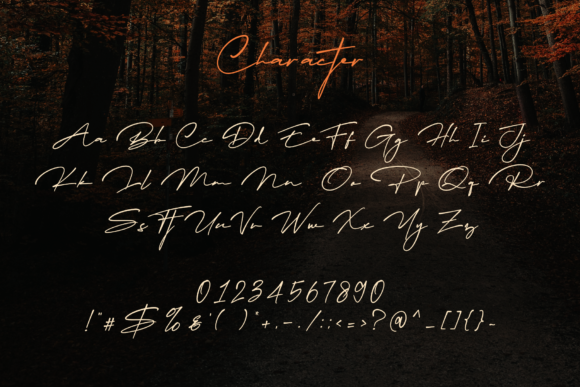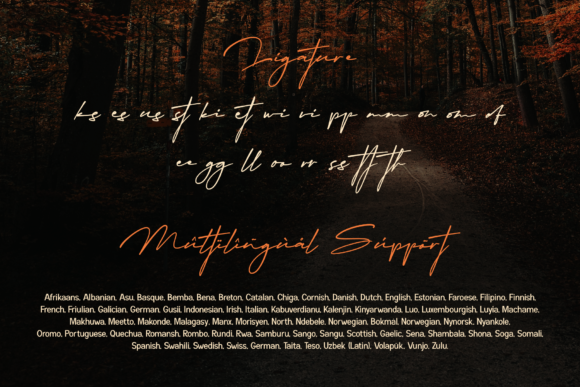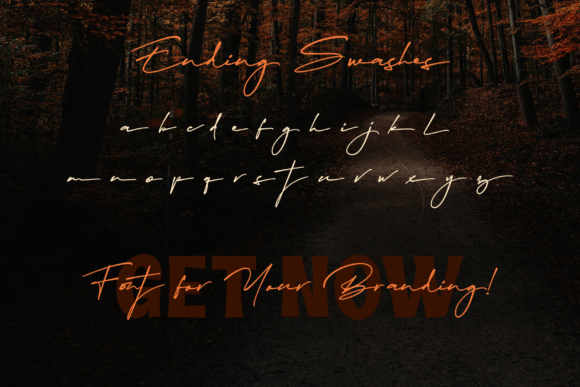
Introduction to Migratory Font
Remember that moment when you stumbled upon the perfect font for your creative project? The one that made all the difference between a mediocre design and a stunning visual masterpiece? For designers, finding that perfect font can be a game-changer. It’s the difference between a project that feels forced and one that feels effortless.
Enter the Migratory Font, a classy modern handwritten font that’s as authentic as it is elegant. With its casual and carefree style, this font is perfect for designers who want to add a touch of personality to their projects. Whether you’re working on a company logo, event title, or brand advertisement, the Migratory Font is a valuable addition to your design resource arsenal.
Key Features of Migratory Font
- High-Quality Design: Migratory Font is a premium design resource featuring a unique and creative style, perfect for various projects.
- Transparent Background: The font includes a transparent background, allowing for easy integration with any design or project.
- Unique Characteristics: Migratory Font boasts a distinctive and creative style, setting it apart from other design resources and making it perfect for unique projects.
Honest Review: Migratory Font
I recently stumbled upon the Migratory Font while searching for a unique design resource to spice up a creative project. At first glance, I was impressed by its high quality and versatility. The font offers a wide range of styles, from modern to vintage, making it an excellent choice for various design needs.
One of the standout features of Migratory Font is its transparent background, which allows for seamless integration into any design. This makes it an excellent option for graphic designers, UI/UX designers, and anyone looking for a high-quality font to elevate their creative project.
- ✨ High-quality design with a wide range of styles
- ✨ Transparent background for easy integration
- ⚠️ Limited customization options
Overall, I’m impressed with the Migratory Font and would recommend it to anyone looking for a high-quality design resource. While it may have some limitations, its versatility and unique features make it a valuable addition to any design library.
Migratory Font
Migratory Font is ideal for creative projects such as branding, marketing materials, and presentations. You can also use it for personal projects, such as creating invitations or social media graphics.
To get the most out of Migratory Font, experiment with different font styles and combinations. You can also use the font with other design elements, such as images and graphics, to create a unique and eye-catching design.